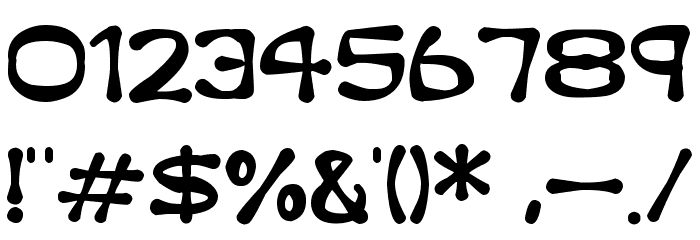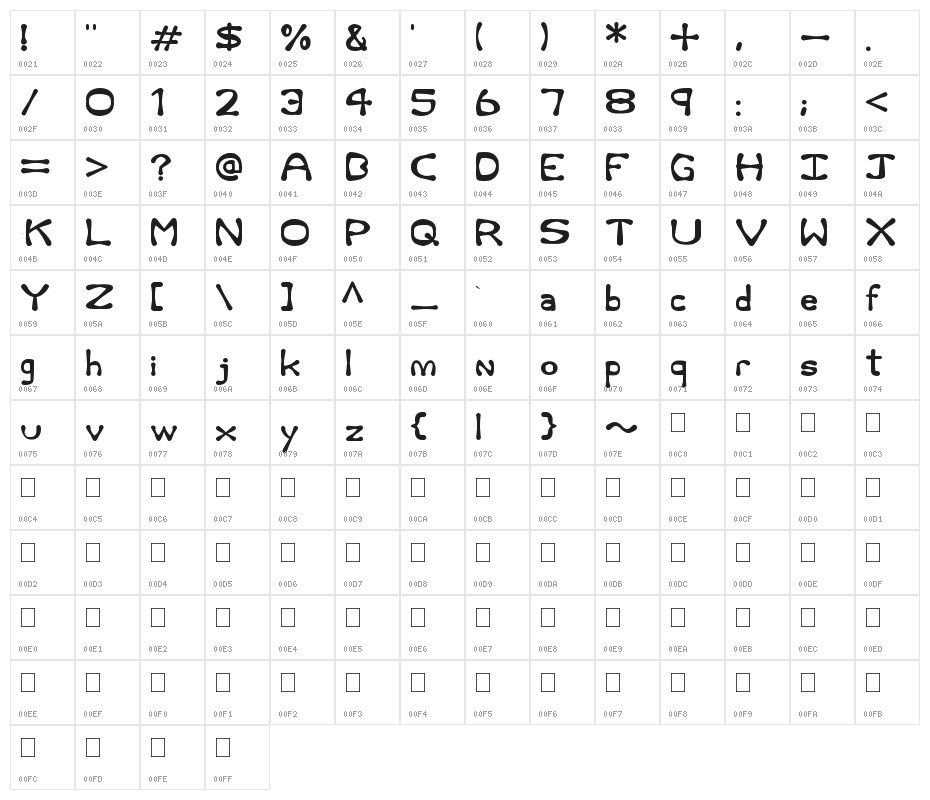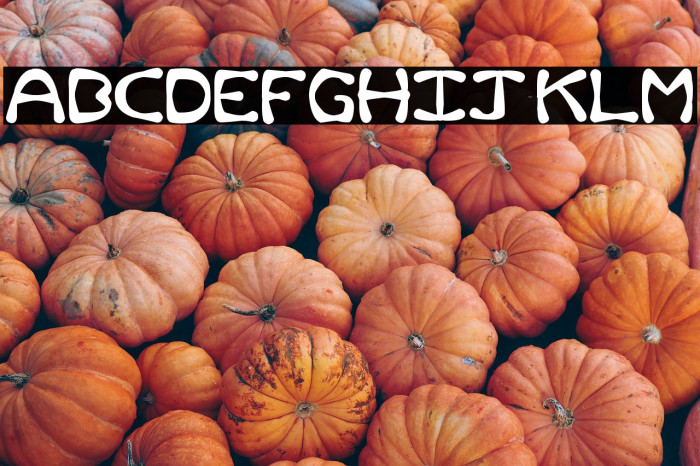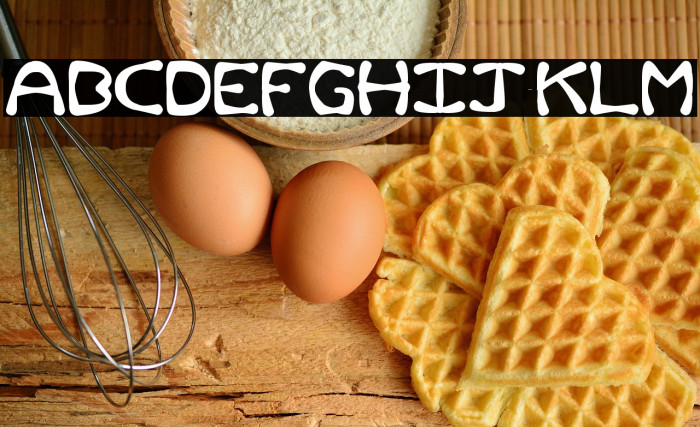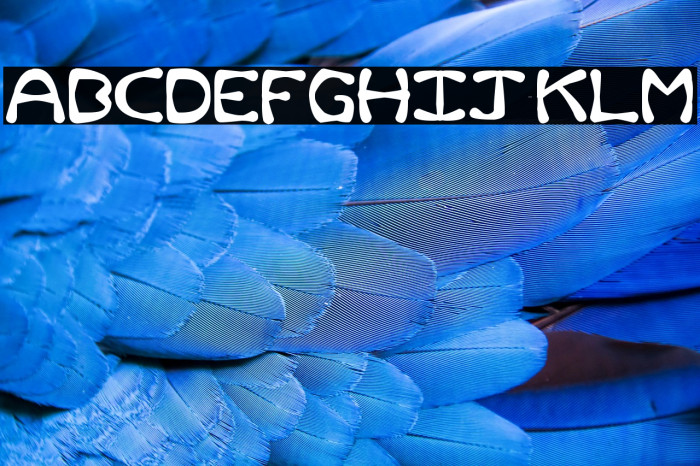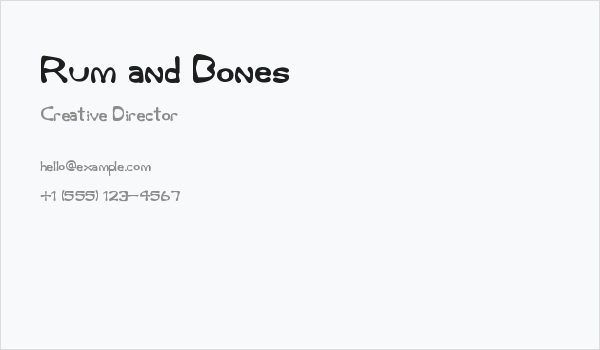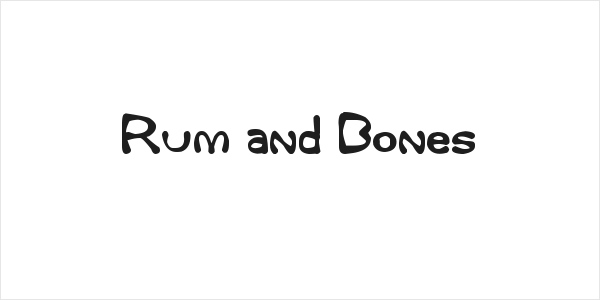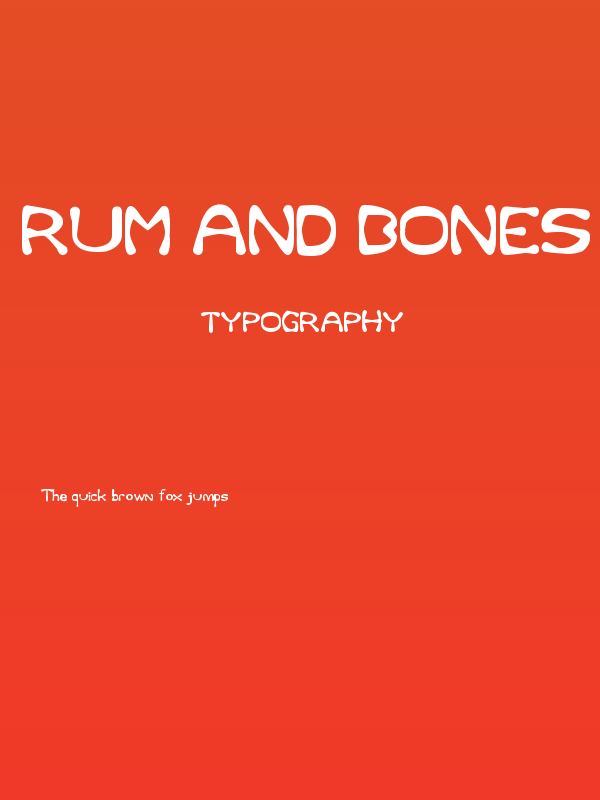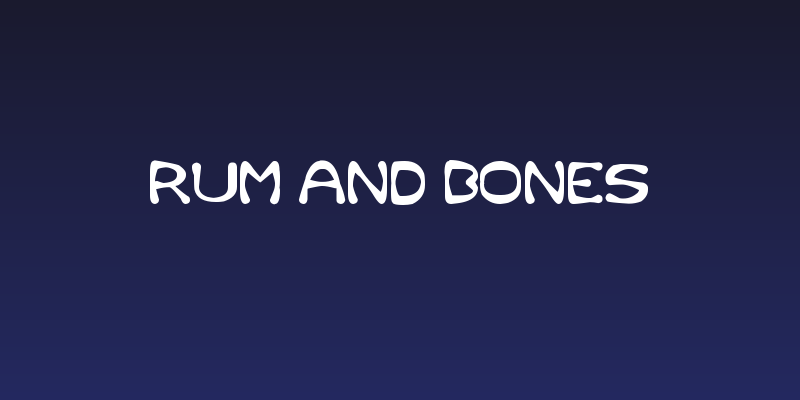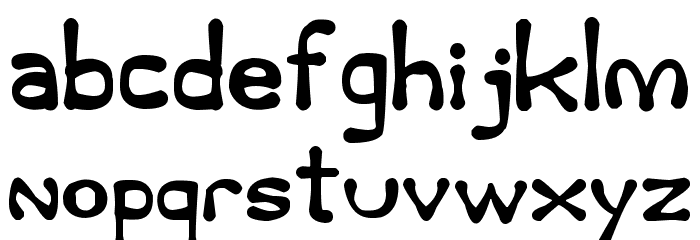
Rum and Bones Font
Rum and Bones Description
This font features a playful and quirky design with a hand-drawn aesthetic. The characters are bold and rounded, giving a friendly and approachable feel. The strokes are uneven, adding to the casual and informal style. Each letter has a unique personality, with slight variations in height and width, enhancing its whimsical charm. The numbers and special characters maintain the same playful style, making it suitable for creative and fun projects. The overall look is reminiscent of a handwritten note, perfect for adding a personal touch to any design.
| Proposed Projects | Ideal for children's books, greeting cards, playful branding, and creative posters. |